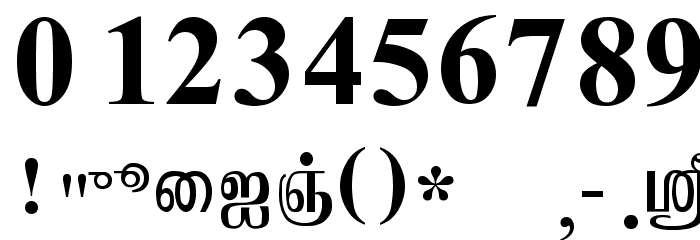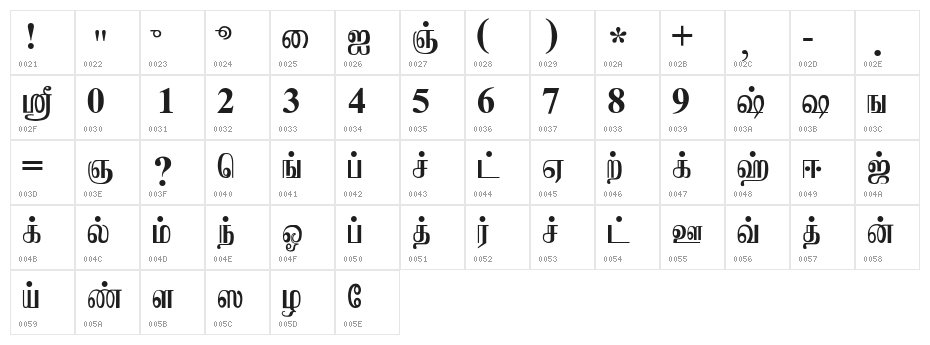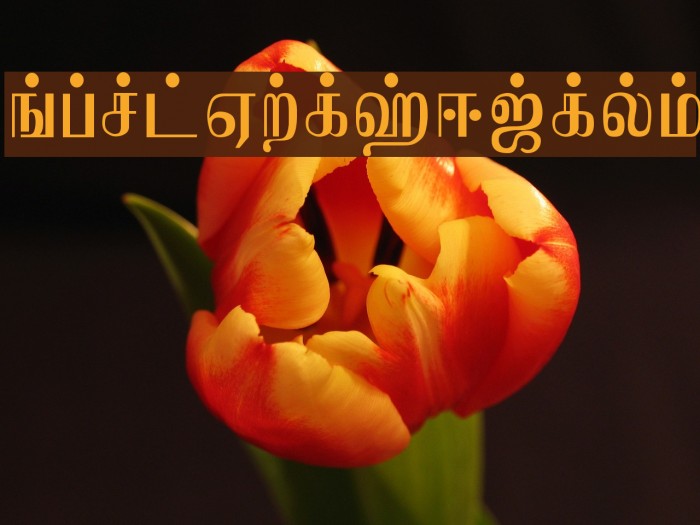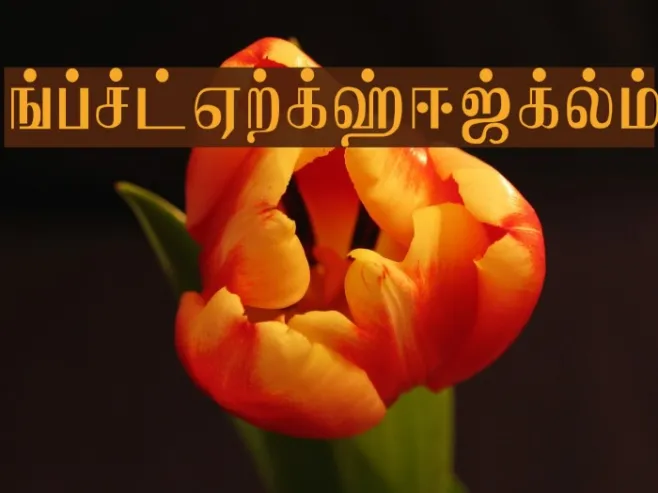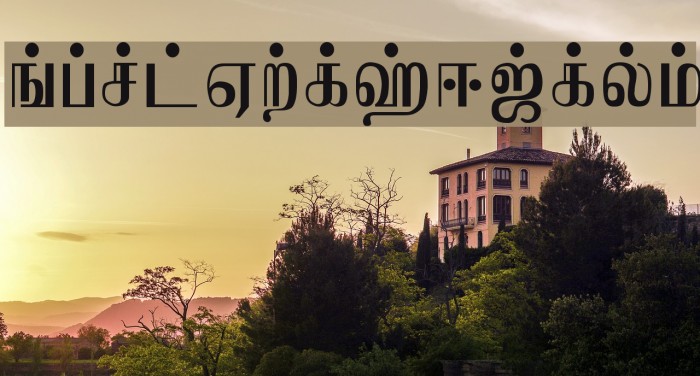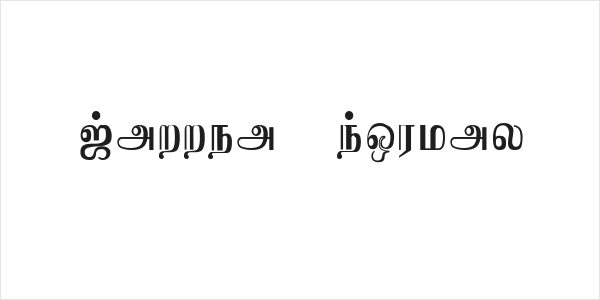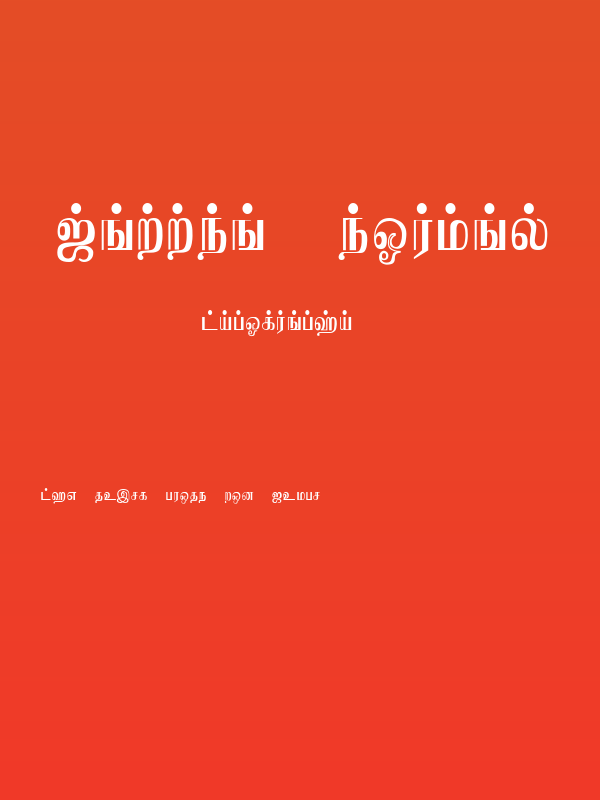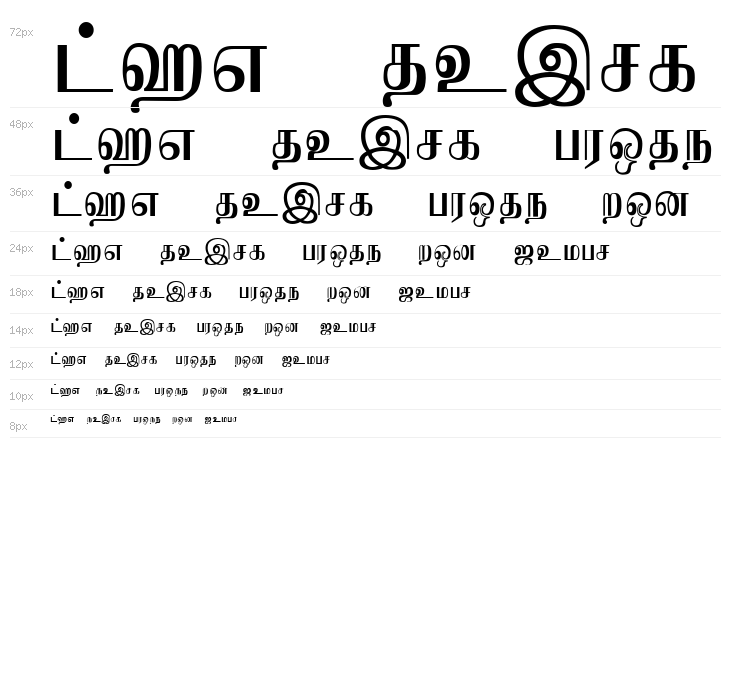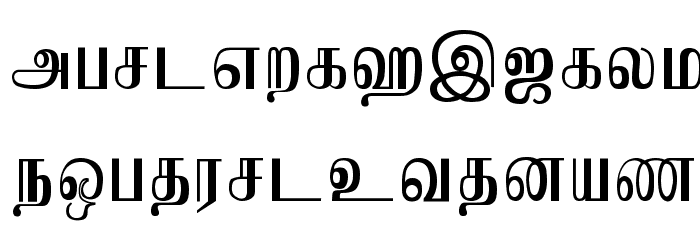
Jaffna Normal Font
Jaffna Normal Description
This font features a distinct and elegant style, characterized by its sharp serifs and high contrast between thick and thin strokes. The characters are well-defined, with a classic yet modern appeal. The numerals are bold and clear, making them easily readable. The special characters maintain the same stylistic consistency, adding to the font's versatility. The overall design is sophisticated, making it suitable for both formal and creative applications.